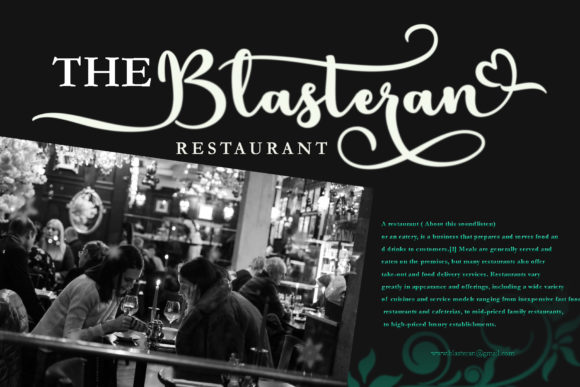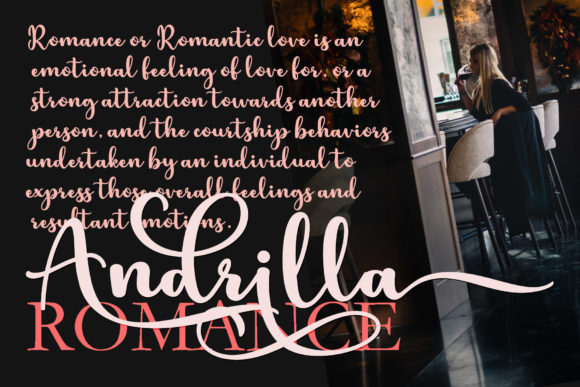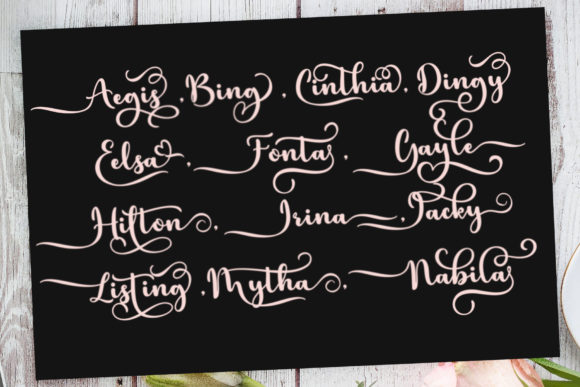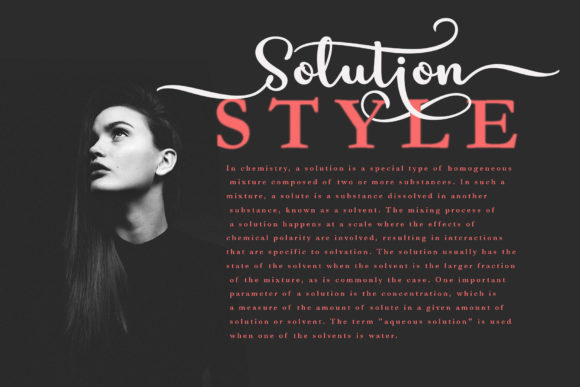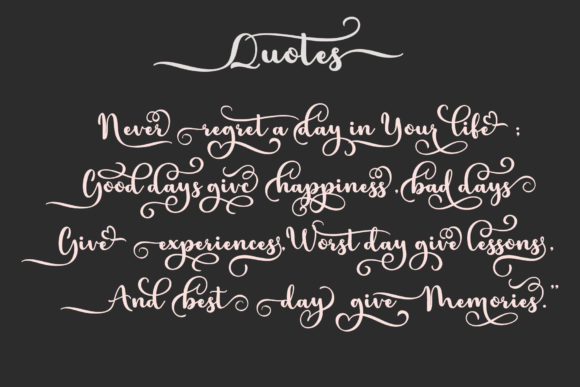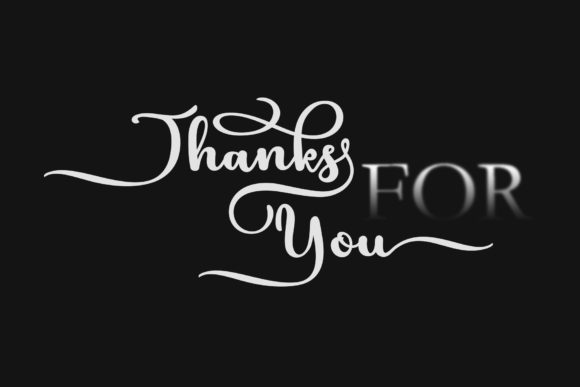
Introduction to Larisa Font
Have you ever been working on a creative project, pouring your heart and soul into it, only to feel like something is missing? That’s where the perfect font can make all the difference. For designers and creatives, finding the right font can be a game-changer, elevating your work from good to great.
That’s why we’re excited to introduce you to Larisa Font, a stunning script font that’s sure to take your designs to the next level. With its elegant touch and high-quality design, Larisa Font is the perfect addition to any creative project. Whether you’re looking for a free download to enhance your social media posts or a design resource for your next big project, Larisa Font has got you covered.
Key Features of Larisa Font
- High-quality, free download font ideal for creative projects, making it a valuable design resource.
- Unique characteristics include elegant script and cursive styles, perfect for adding a touch of sophistication to your design.
Honest Review: Larisa Font
As a designer, I’m always on the lookout for high-quality design resources that can elevate my creative projects. The Larisa Font caught my eye with its elegant and modern style.
- ✨ The font’s transparent background allows for seamless integration with any design element.
- ✨ The font is highly customizable, making it perfect for a wide range of creative projects.
- ⚠️ The font may not be suitable for use in headings or titles due to its delicate style.
- ⚠️ Some users may find the font’s weight to be inconsistent across different sizes.
Overall, I’m impressed with the Larisa Font’s quality and versatility. While it may not be perfect for every project, it’s an excellent addition to any designer’s toolkit. I would recommend it to anyone looking for a high-quality, free design resource.
Larisa Font
Tips for Getting the Most Out of Larisa Font
Experiment with different font sizes and styles to create visual interest. Use Larisa Font in combination with other fonts to add depth and variety to your design. Consider using the transparent background feature to create a cohesive look across your design elements.
Larisa Font is perfect for creative projects, such as graphic design, branding, and digital art. Its high quality and unique design make it a valuable addition to any design resource library.